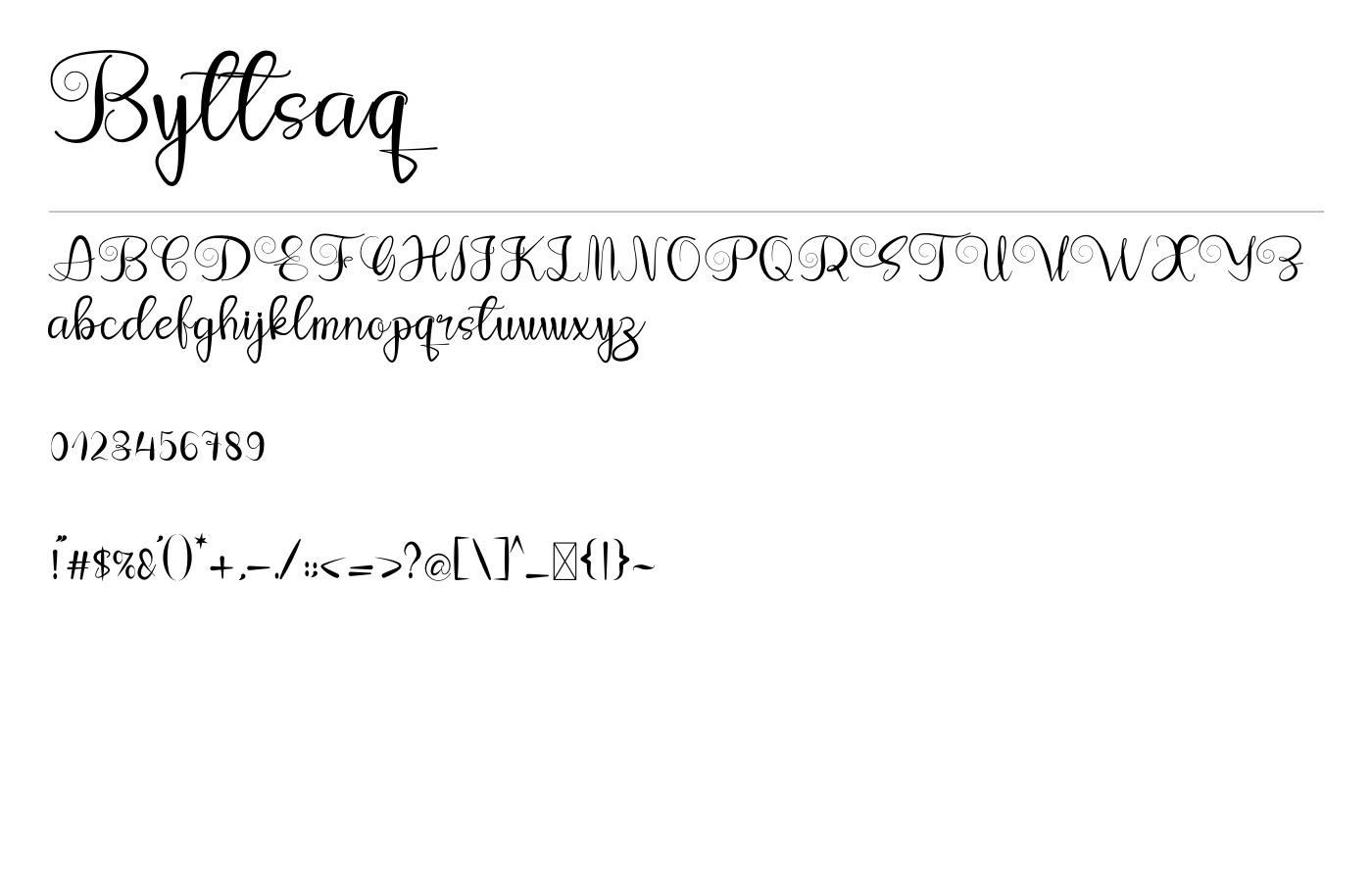
Byttsaq is an elegant script font characterized by its delicate, flowing strokes and charming swirls, especially in the uppercase letters, giving it a graceful and artistic flair. It features a light weight with moderate contrast and a handwritten feel, making it perfect for stylish invitations, branding, and decorative headlines where a touch of sophistication and personality is desired. This font works wonderfully in designs that aim to convey elegance and creativity with a modern yet classic touch.
Byttsaq Font
About Byttsaq Font